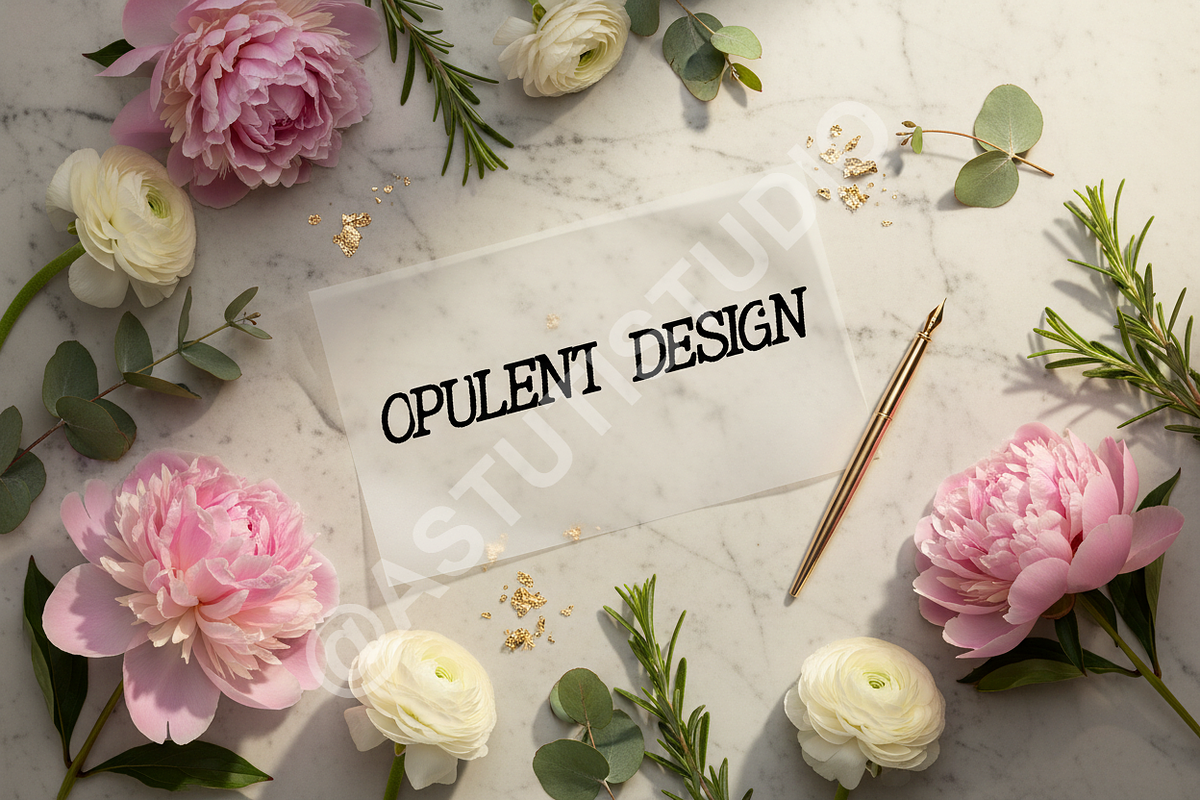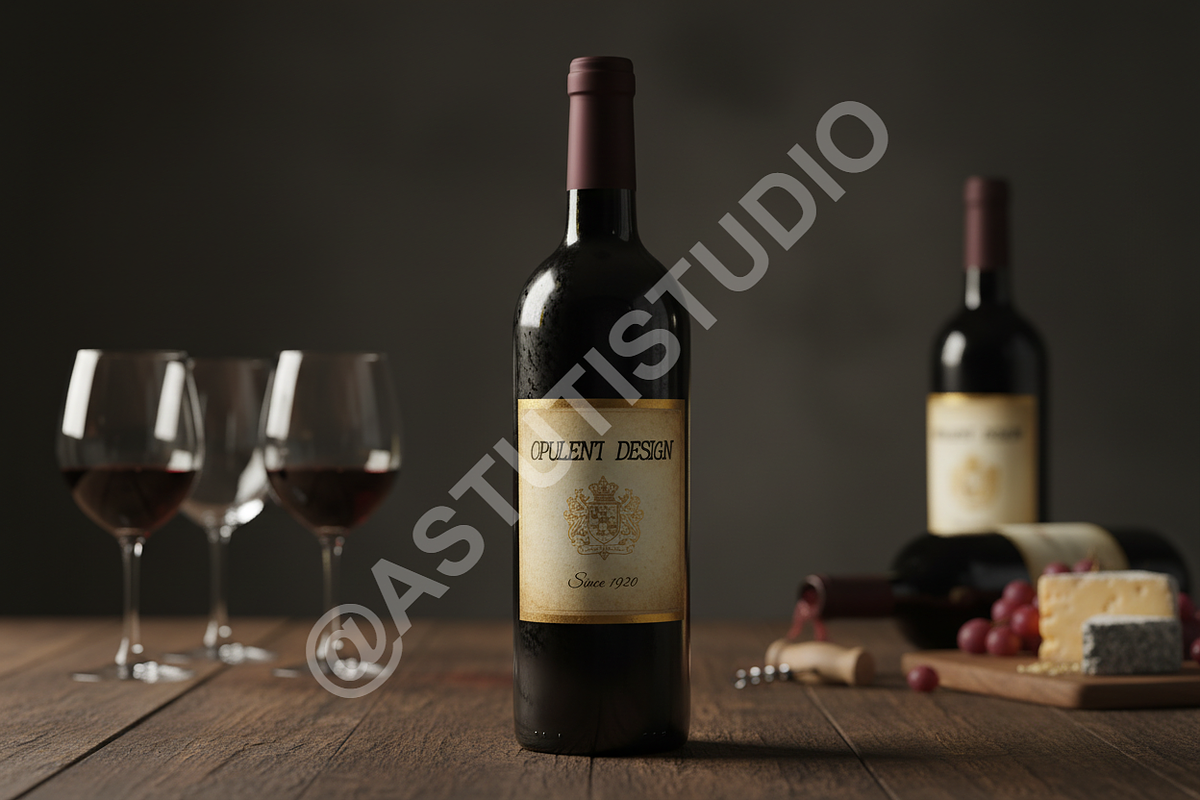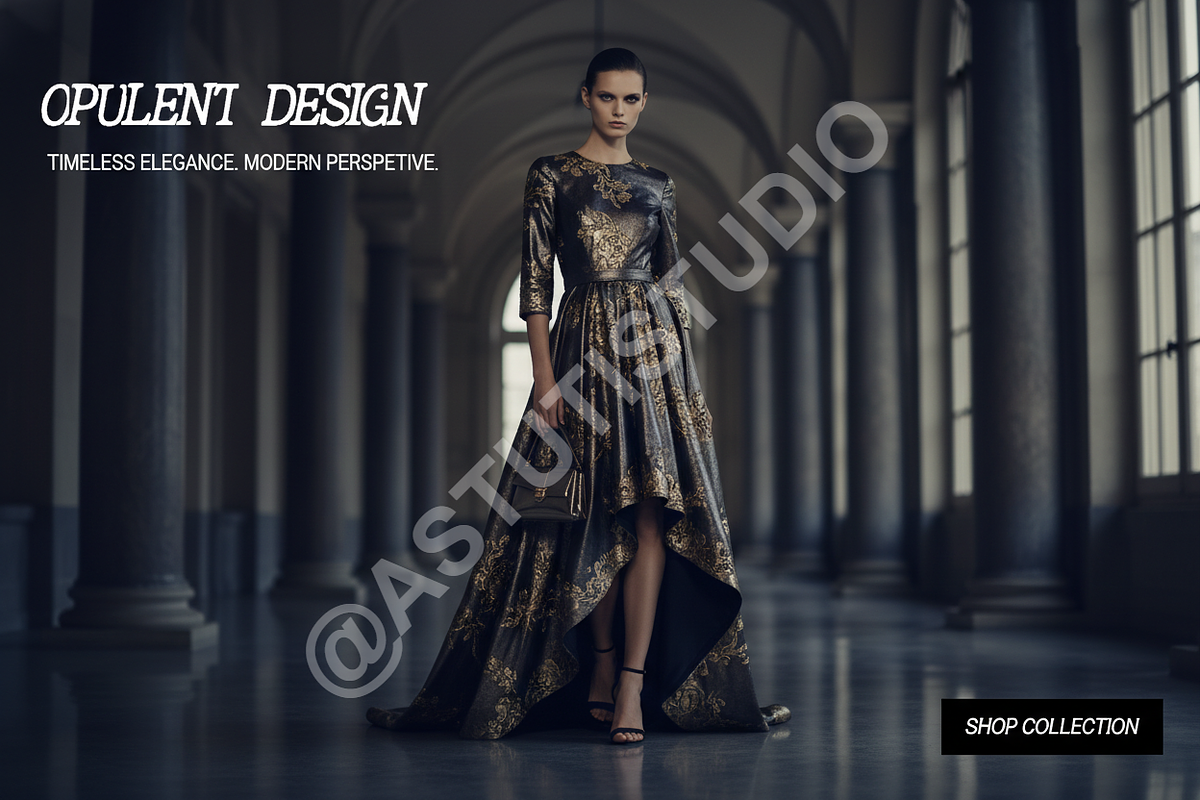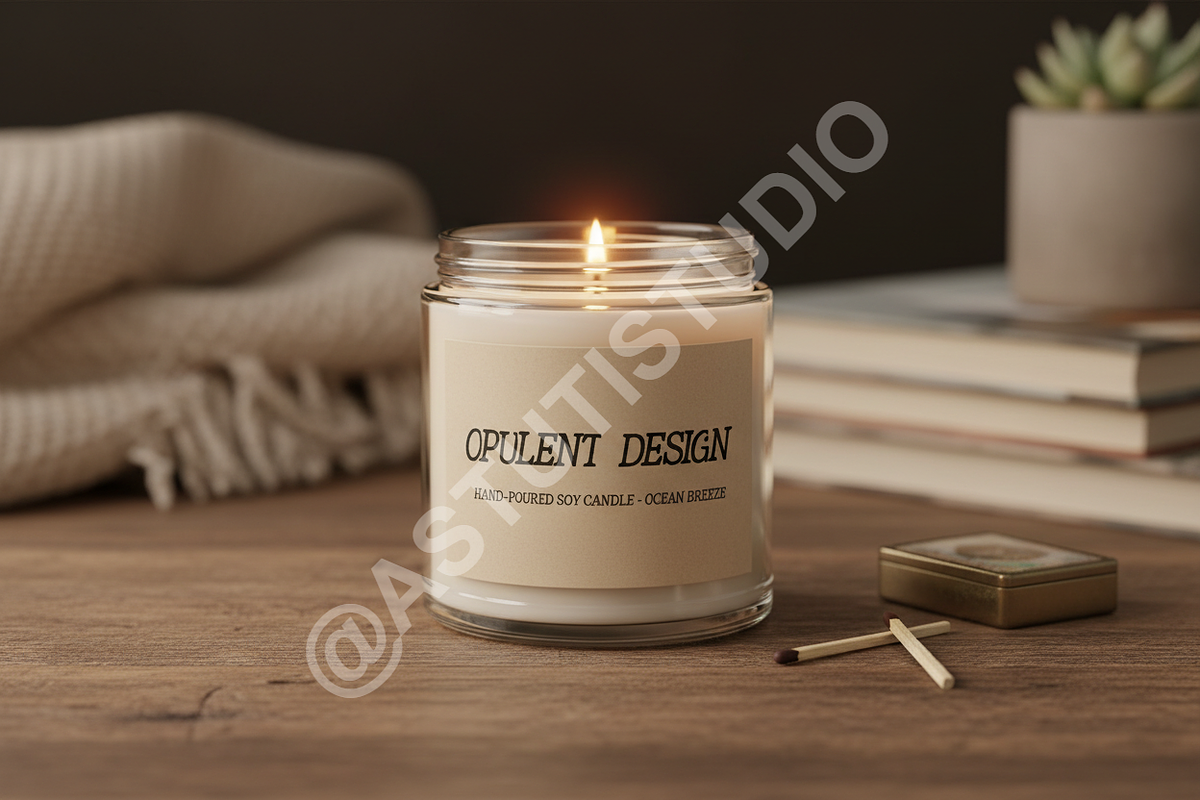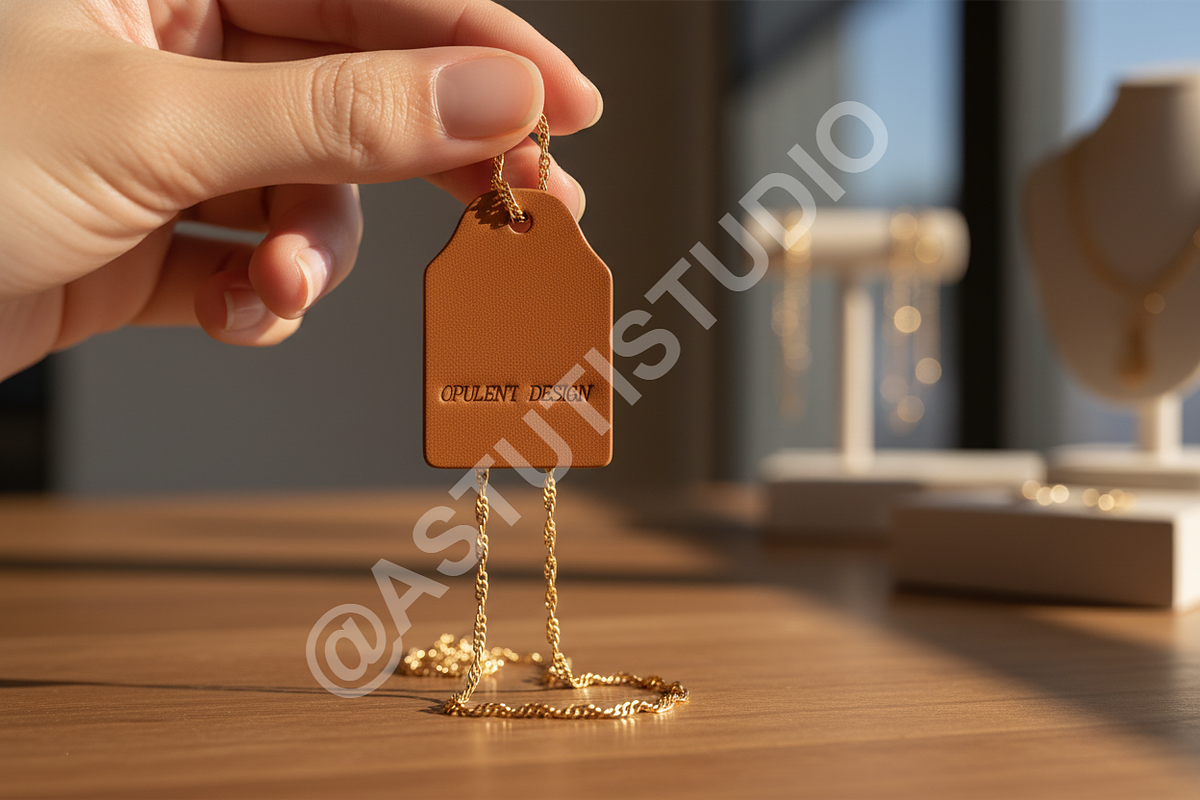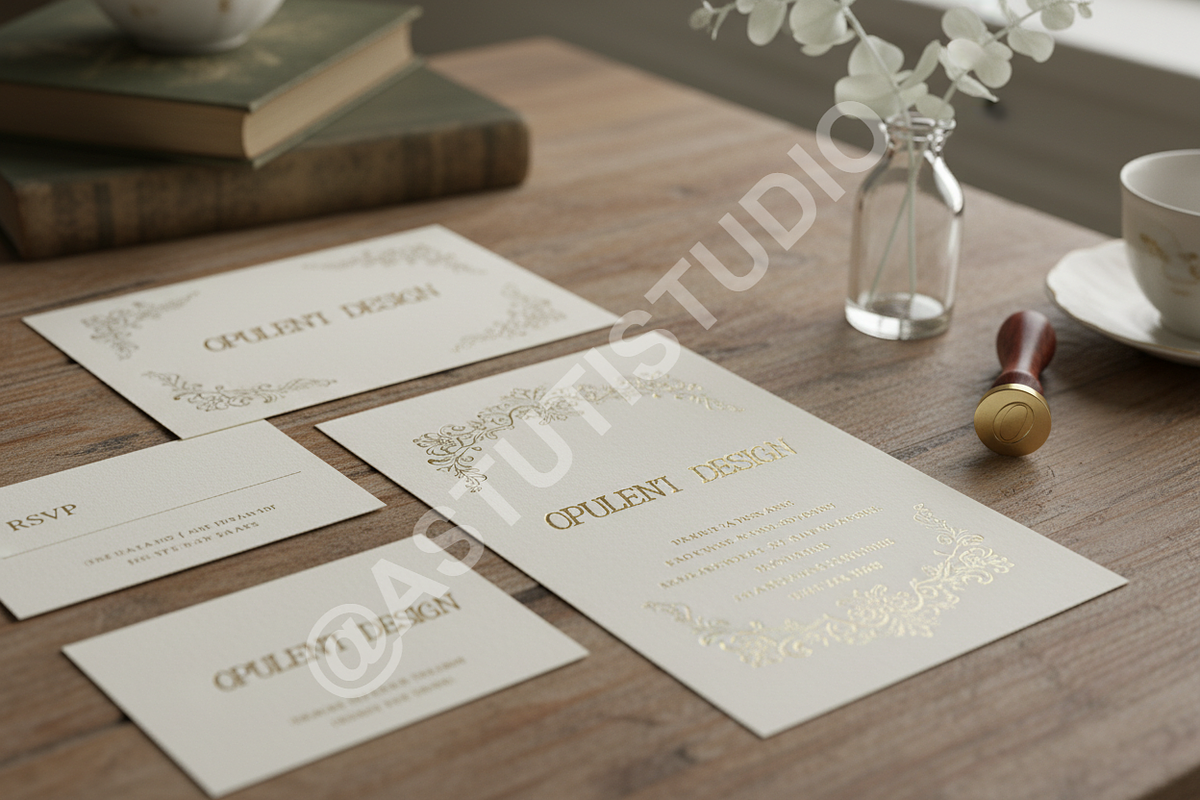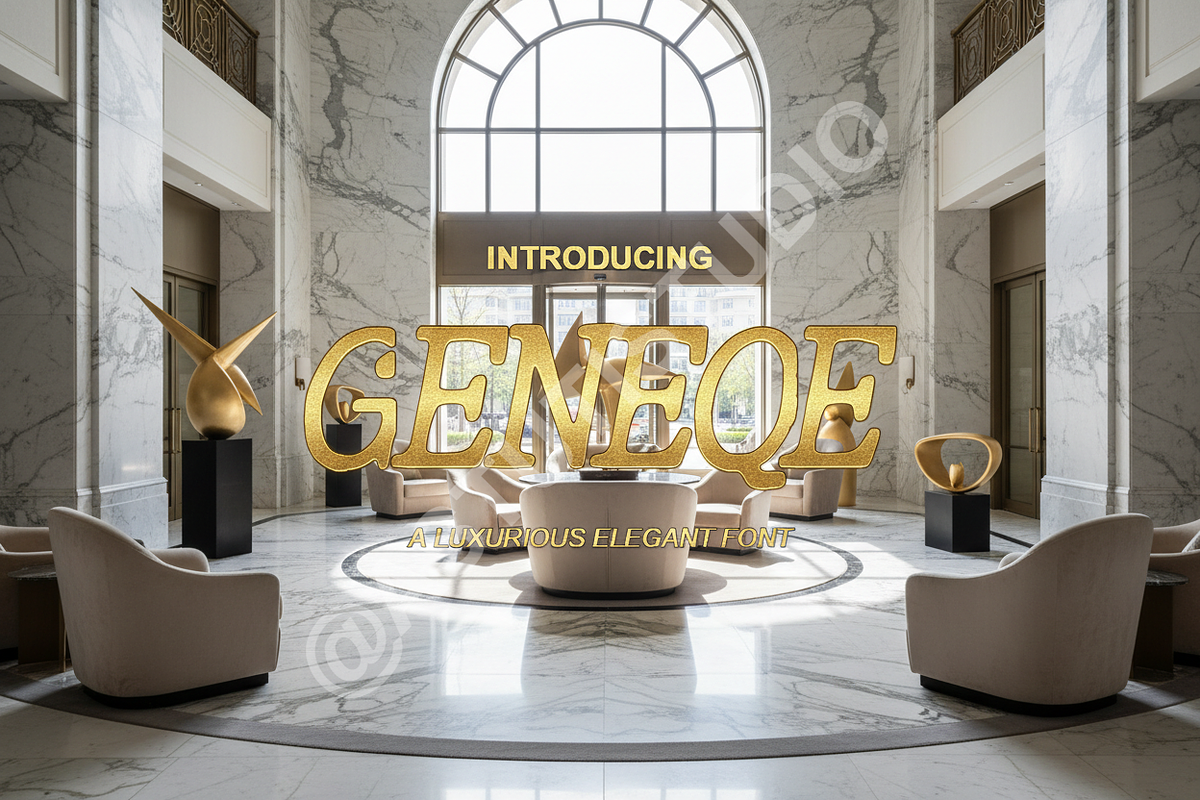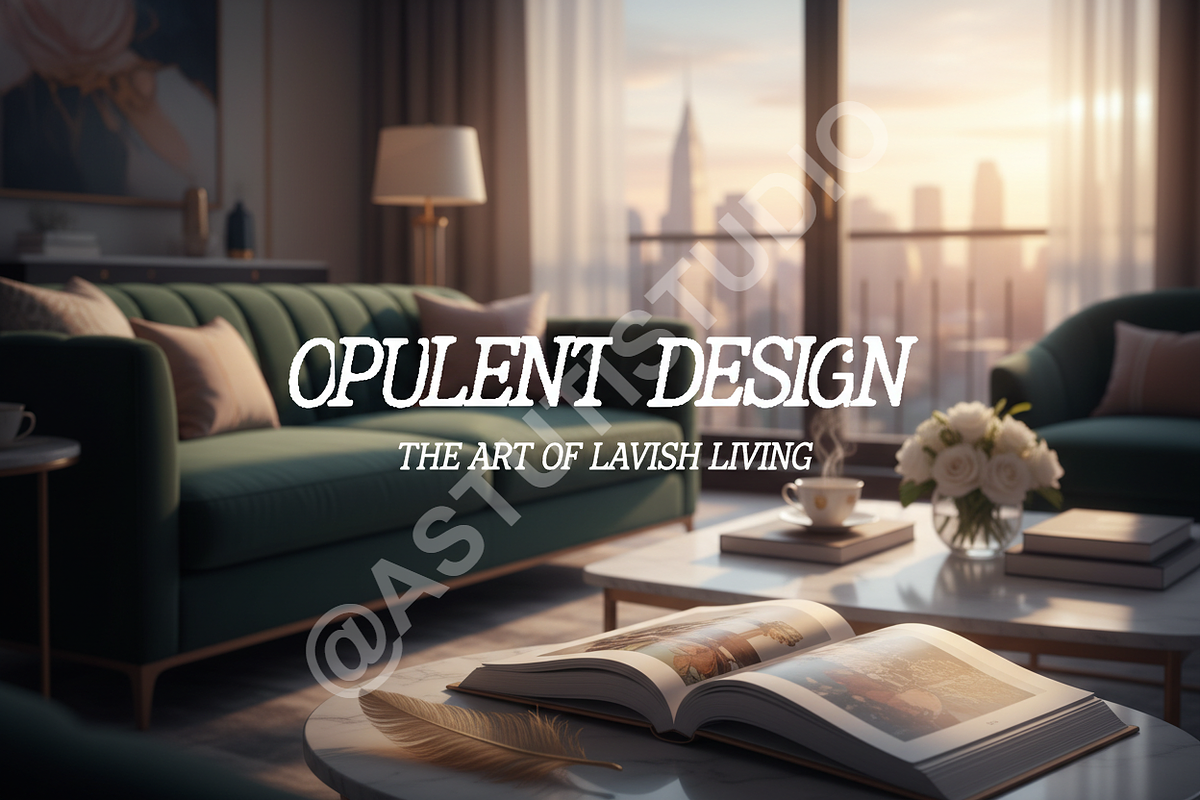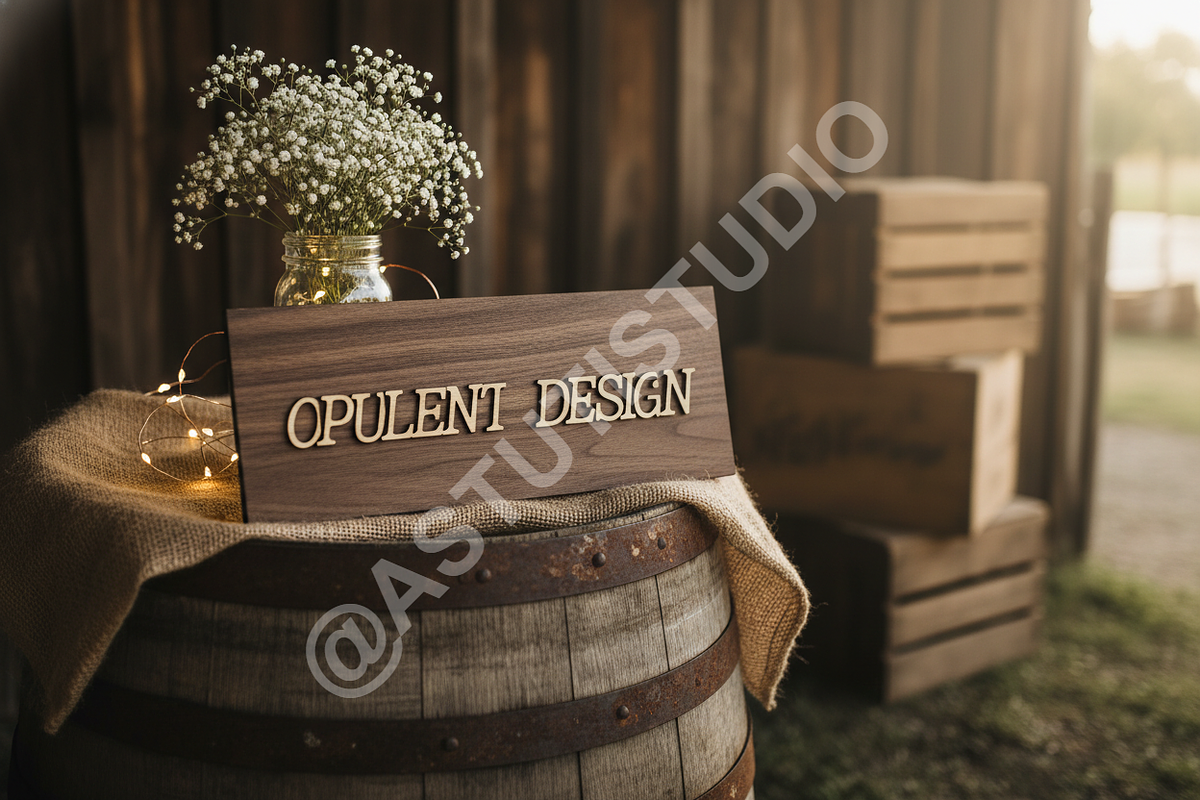
Geneqe: The Quintessential Elegant S
Introducing Geneqe, a masterful serif typeface designed for the discerning creative who values sophistication and heritage. Geneqe captures the essence of classic high-fashion typography while providing the clean, balanced structure required for modern digital platforms. It is the definitive choice for projects demanding an elevated aesthetic, ensuring your brand narrative is communicated with grace and authority.
- Luxurious Versatility: Optimized for high-impact titles, editorial spreads, and concise body text.
- Elegant Ligatures & Alternatives: Includes carefully designed stylistic alternates and discretionary ligatures to personalize your design and avoid repetition.
- Perfect for Digital & Print: Crystal clear rendering at all sizes, suitable for both high-resolution screen displays and fine print collateral.
- Ideal Applications: Luxury Branding, High-Fashion Magazines, Editorial Layouts, Upscale Product Packaging, and Professional Social Media Campaigns.